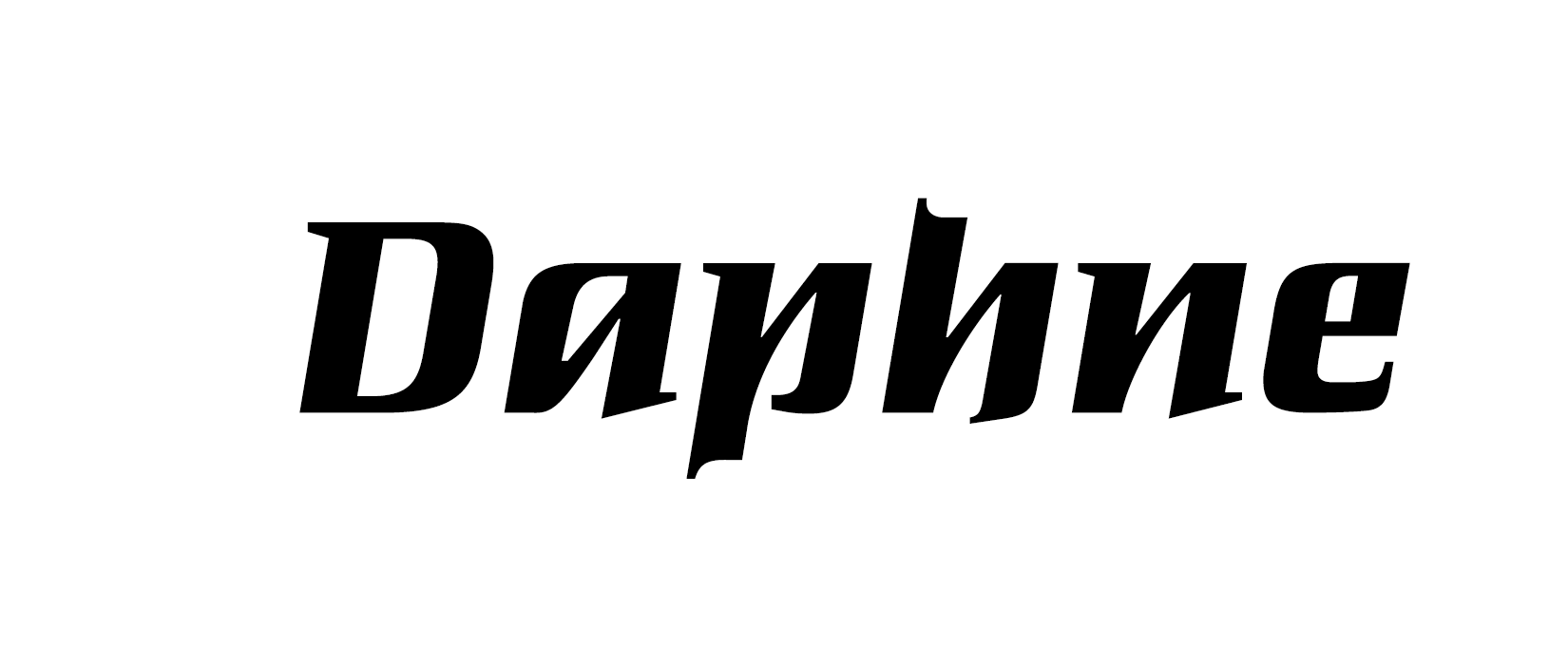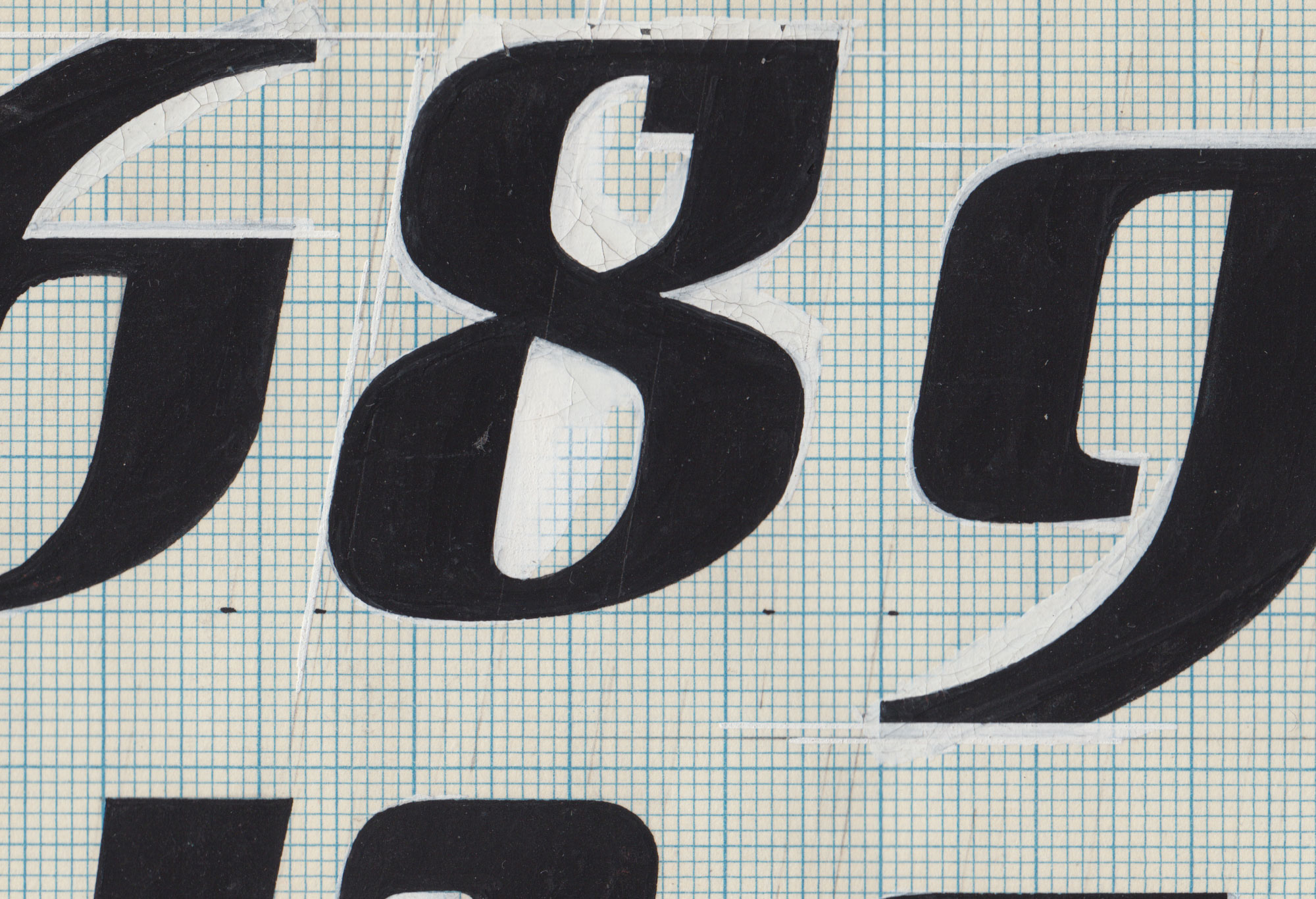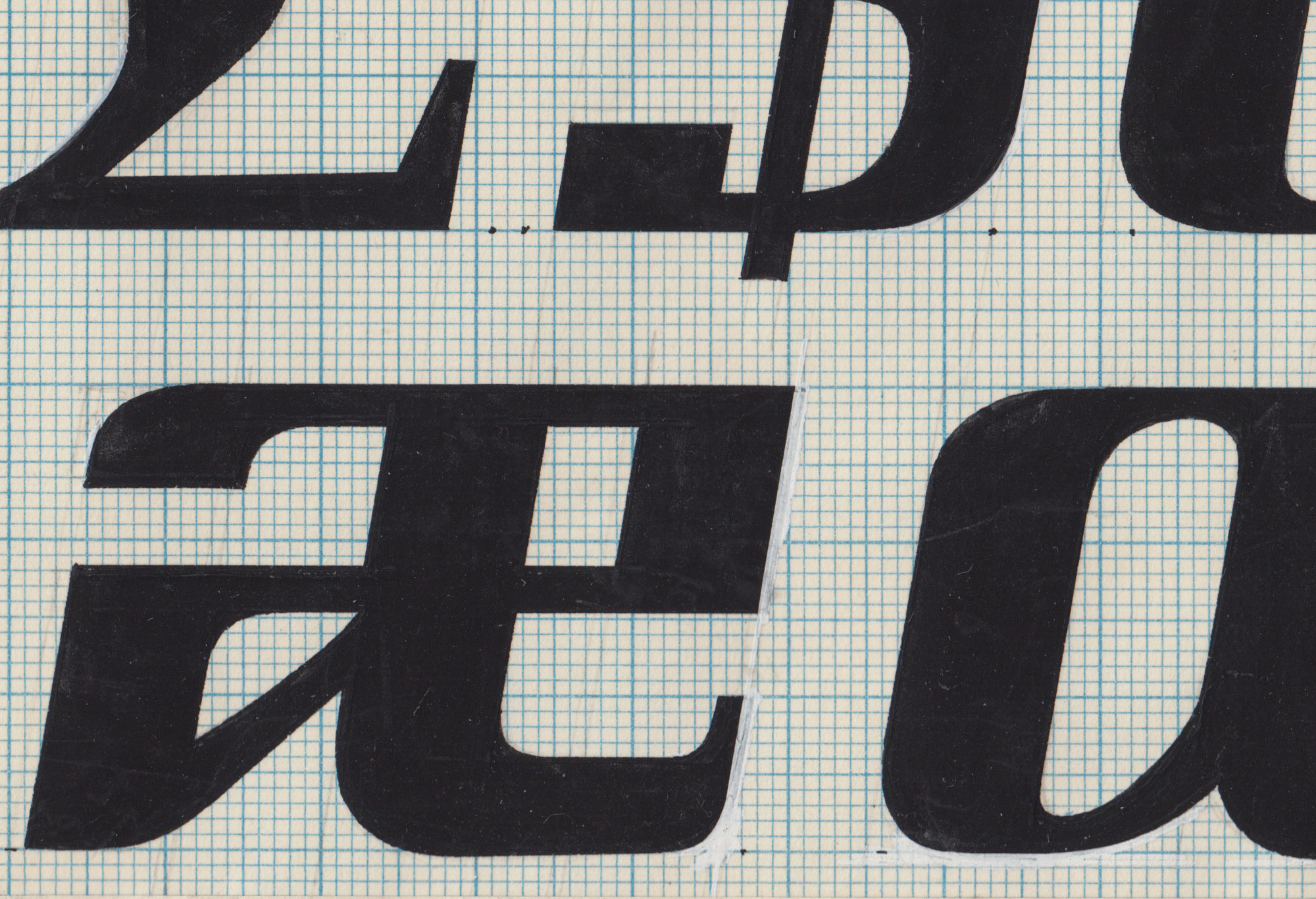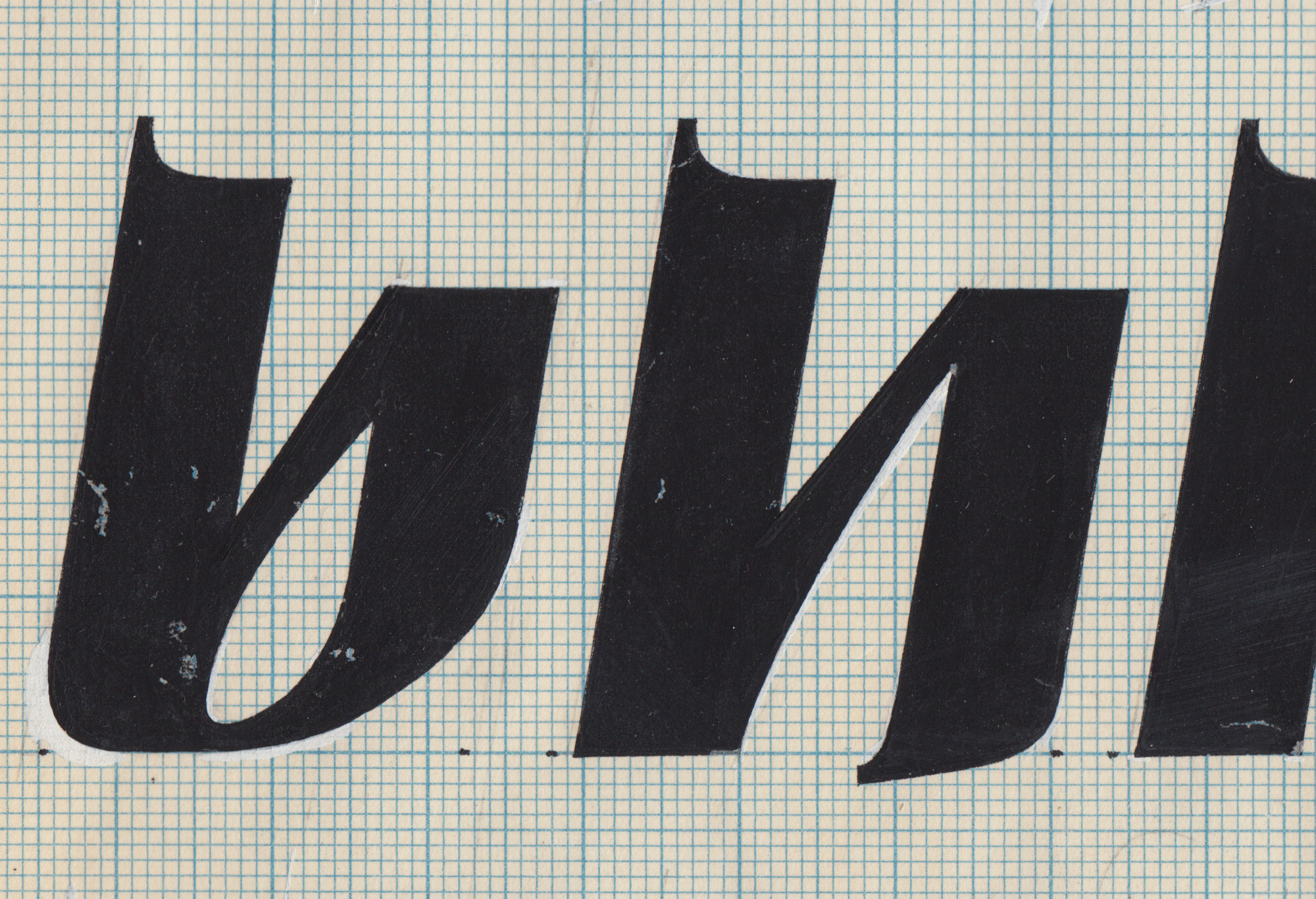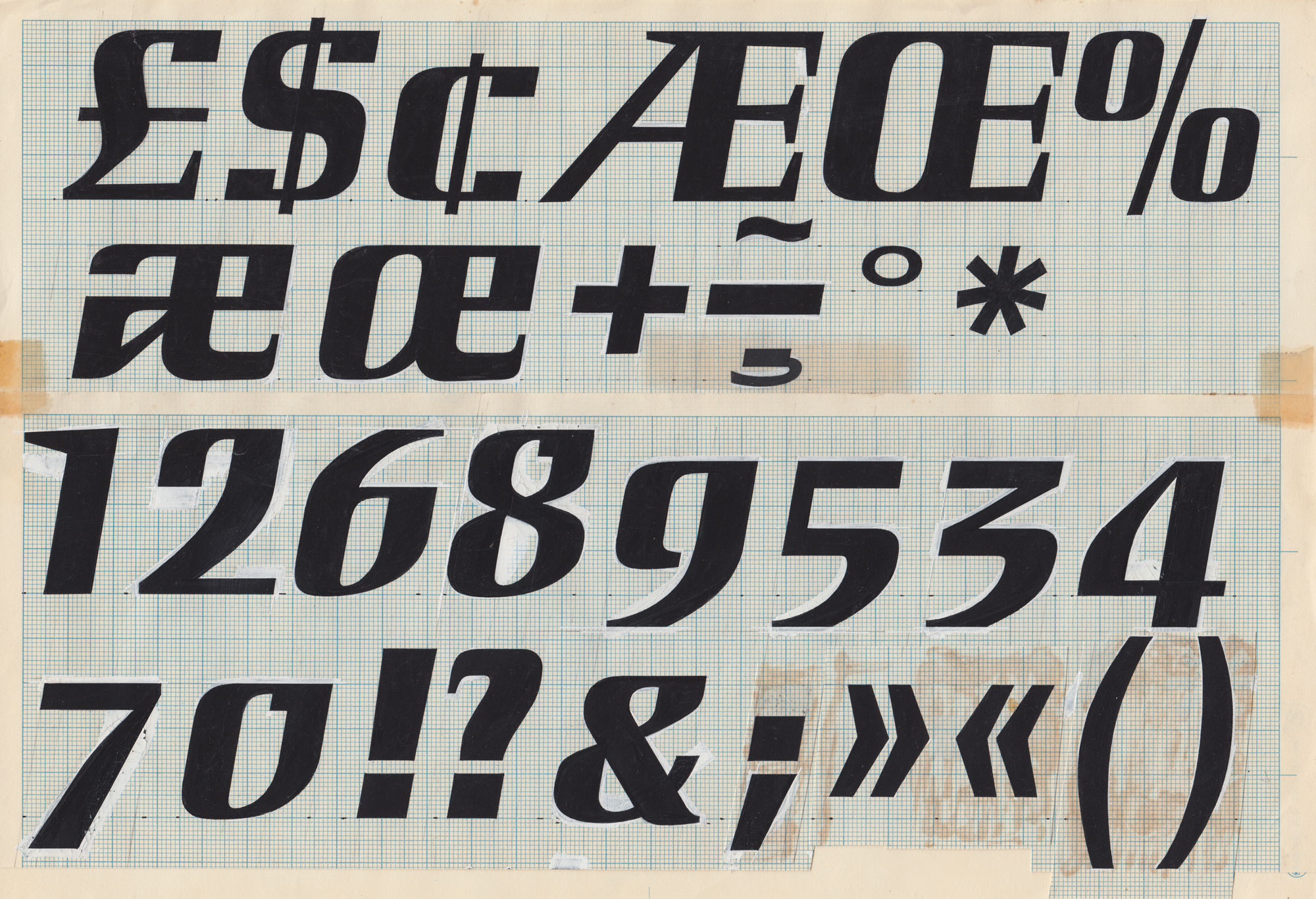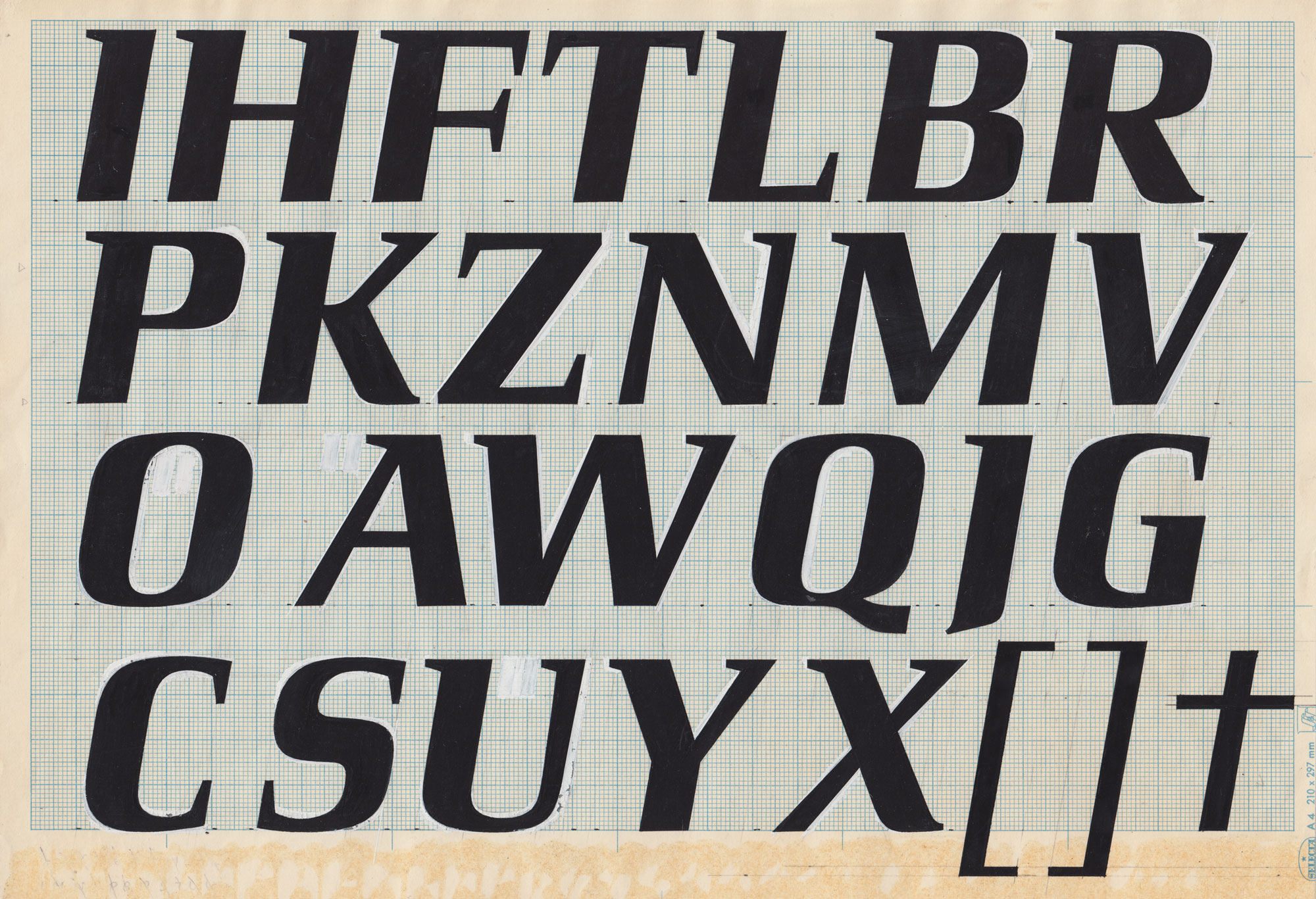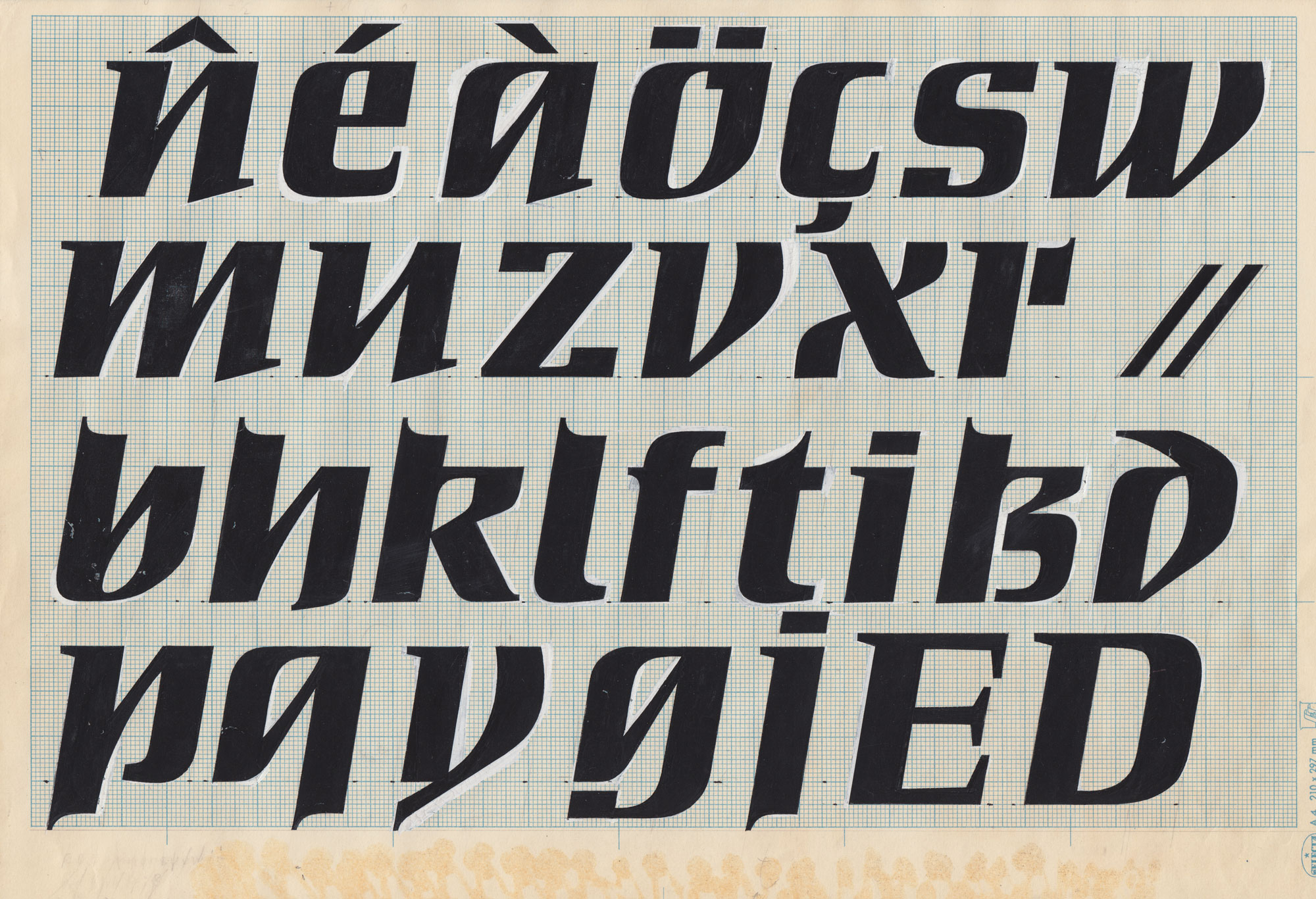
Daphne contains numerous calligraphic swashes, which can be added to the particular base glyph using OpenType feature. Alternate glyphs and complete swash letters supplement the character set. See a complete overview of the included OpenType features or download the Daphne User Guide PDF.
To access the swashes, you type either a sequence of asterisks before a character or a sequence of plus signs after a character. Swashes are also available for many accented and other language-specific characters.
The same feature allows you to access the alternate glyphs by typing a # in front of the particular character. It is also possible to combine all of the features.
Daphne was developed from a text written with a broad nib pen (top). Georg Salden writes:
I was asked take on a contract for a hat shop in Dusseldorf in the 1960s. As an opening advert I used a text written with the broad nib pen which turned out to be the basis for »Daphne«. It was all about the bold italic line with large swashes. This font was accepted by Berthold for its Staromat. The various swashes could be copied onto other letters, depending on taste. This provided hundreds of possibilities. Although I gave exact instructions as to how these swashes were to be used, the production placed them wrong, some even upside down. This was one of the reasons why I decided to publish my fonts independently.